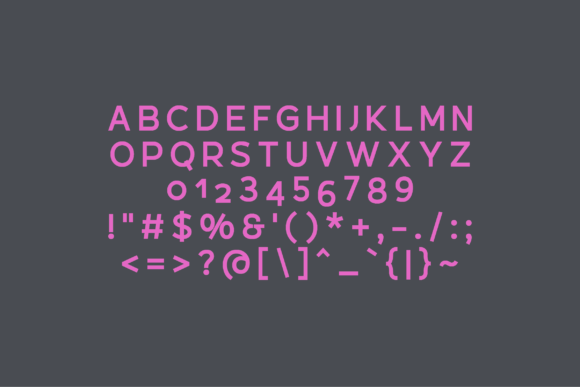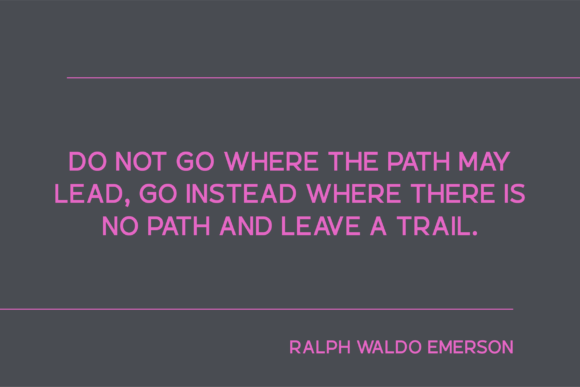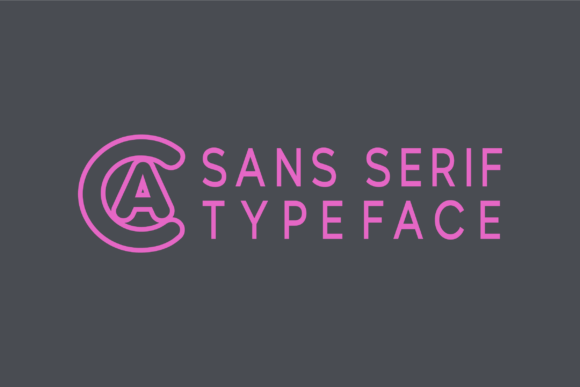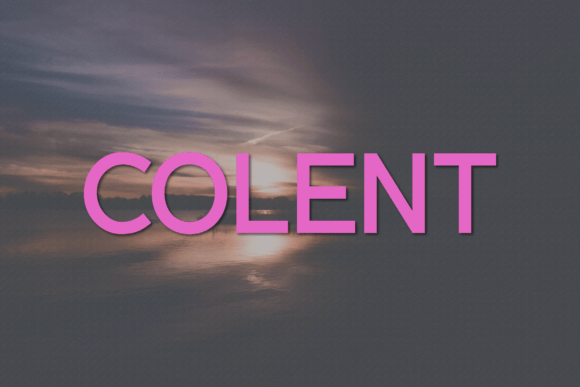
Introducing Colent Font: Elevate Your Designs with Modern Elegance
In the world of typography, a font can make or break a design. It’s the foundation upon which creativity is built, and the right choice can elevate a project from ordinary to extraordinary. For designers and crafters seeking a modern, classy sans serif typeface, look no further than Colent Font. This versatile and stylish font is perfect for a wide range of applications, from logos and weddings to invitations, quotes, advertisements, and more.
What is Colent Font?
Colent Font is a contemporary sans serif typeface that exudes elegance and sophistication. It features a comprehensive character set, including upper case characters, numbers 0-9, and a range of punctuation and symbols. This extensive character set makes Colent Font an extremely versatile choice for designers, allowing it to be used in various contexts and applications.
Key Features of Colent Font
- Modern and Classy Design: Colent Font boasts a sleek, modern design that instantly adds a touch of sophistication to any project.
- Comprehensive Character Set: The font includes upper case characters, numbers 0-9, and a range of punctuation and symbols, ensuring that designers have everything they need to create stunning text-based designs.
- Versatility: Whether you’re working on a logo, wedding invitation, advertisement, or magazine, Colent Font is the perfect choice.
- Ease of Use: Colent Font is easy to read and works beautifully in both digital and print formats.
Colent Font’s versatility makes it an excellent choice for a wide range of design projects. Here are just a few examples:
- Logos: Create a lasting impression with a modern and classy logo that stands out from the crowd.
- Weddings and Invitations: Add a touch of elegance to your wedding invitations, save-the-dates, and other stationery.
- Advertisements: Make your ads stand out with a font that’s both modern and easy to read.
- Magazines and Print: Use Colent Font in your magazine layouts, brochures, and other print materials for a sophisticated look.
- Quotes and Typography: Create stunning typographic quotes and posters that showcase your favorite sayings and phrases.
Why Choose Colent Font?
With so many fonts available, why choose Colent Font? Here are a few compelling reasons:
- Unique and Modern Design: Colent Font offers a fresh and modern take on the sans serif typeface, making it perfect for designers looking for something new and exciting.
- Highly Versatile: Whether you’re working on a personal project or a client’s, Colent Font’s versatility ensures that it will meet your needs.
- Easy to Read: The font’s clean lines and simple design make it easy to read, even at small sizes.